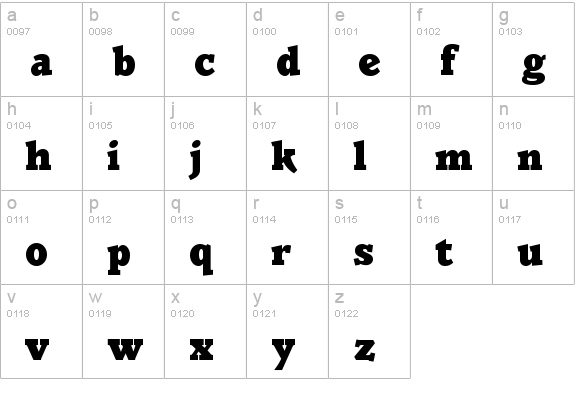
Parkinson-Black is a maximum-weight, dramatic variant in the Parkinson typeface family \xE2\x80\x94 well suited to maximum-impact headlines, posters, and packaging.
Introducing Parkinson-Black, a beautifully crafted font that exudes elegance and sophistication. This font is a perfect blend of modernity and classic design, making it suitable for a wide range of creative projects. With its sleek lines and bold strokes, Parkinson-Black commands attention and leaves a lasting impression. What sets Parkinson-Black apart is that it is not only visually stunning, but it is also free. Yes, you read that right! This incredible font is freely available to download at FontsMarket.com. Now, you can effortlessly elevate your designs without breaking the bank. Whether you're designing a logo, creating a captivating poster, or crafting a stylish website, Parkinson-Black will effortlessly elevate your work to new heights. Its versatility allows it to be used in various contexts, from corporate branding to personal projects, adding a touch of sophistication and professionalism. The timeless appeal of Parkinson-Black is further enhanced by its wide range of characters, including uppercase and lowercase letters, numbers, and punctuation marks. This font's attention to detail is evident in every curve and contour, ensuring that your designs are nothing short of perfection. With Parkinson-Black, you have the power to make a bold statement and captivate your audience. Its clean lines and flawless execution make it a font that demands attention and leaves a lasting impression. So why wait? Download Parkinson-Black today, for free, at FontsMarket.com, and unlock a world of design possibilities.